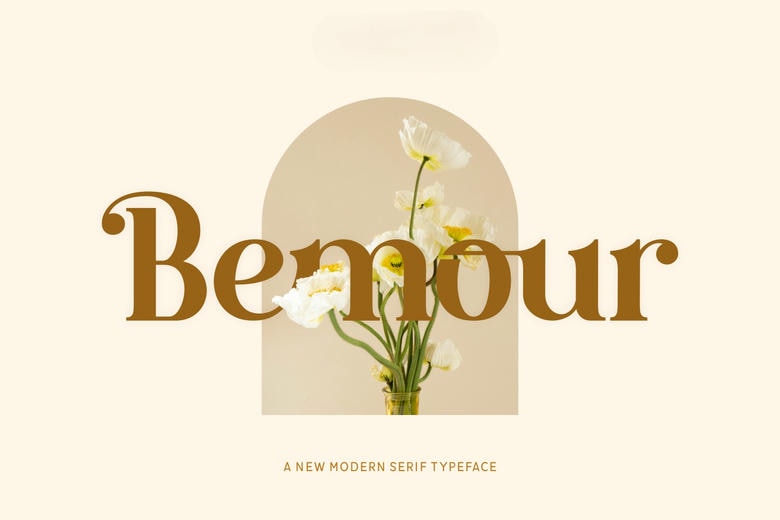
Bemour Font
Bemour is a charming contemporary serif font showing the soft swash and delicate curves. It is very warm and refined, and therefore, it is ideal in the case of branding, wedding invites, packaging, and lifestyle blogs as well.
Bemour Serif Font